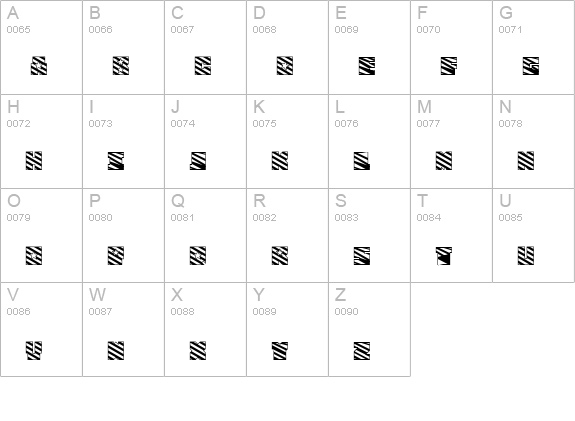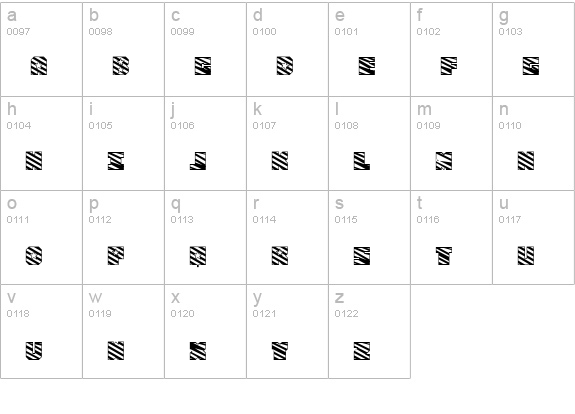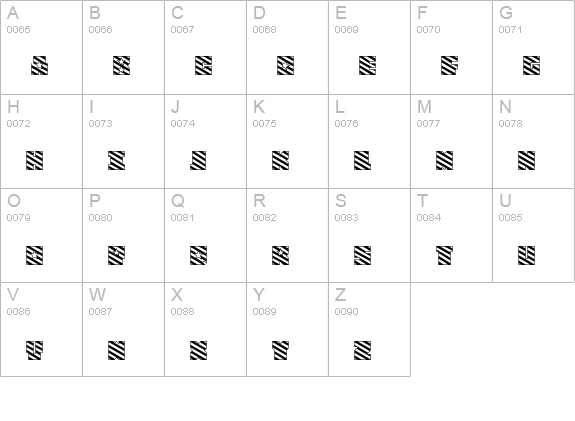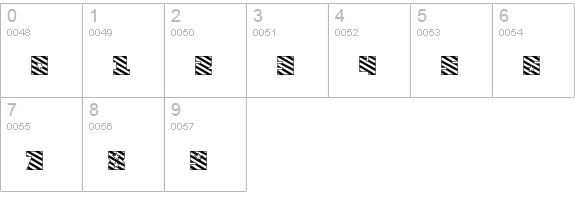
FourJulyG Font Details
FourJulyG font is a versatile and eye-catching typeface that exudes a sense of elegance and modernity. Its clean lines and unique design make it perfect for a wide range of design projects, from branding to editorial design. With a sleek and sophisticated look, FourJulyG font is sure to make your text stand out and leave a lasting impression on your audience. What sets FourJulyG font apart is its seamless blend of classic and contemporary elements, resulting in a timeless and stylish appearance. Whether you're creating a logo, poster, or website, this font will add a touch of sophistication and flair to your work. Best of all, FourJulyG font is available for free download at FontsMarket.com, making it accessible to designers of all skill levels. Don't miss out on the opportunity to elevate your designs with this stunning and versatile typeface. Download FourJulyG font today and take your projects to the next level!